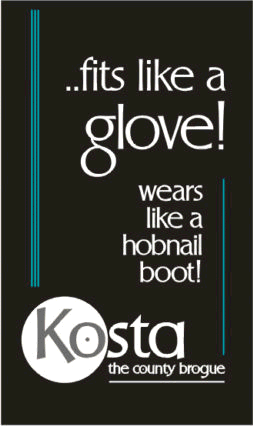
LHF Stevens Percepta 6 font set from Arthur Vanson inspired by
legendary showcard writer and designer Mike Stevens. A smart alternative
to Optima. Lots of personality. Each font includes alternate lowercase
g and ampersand. See key guide inside package for details.